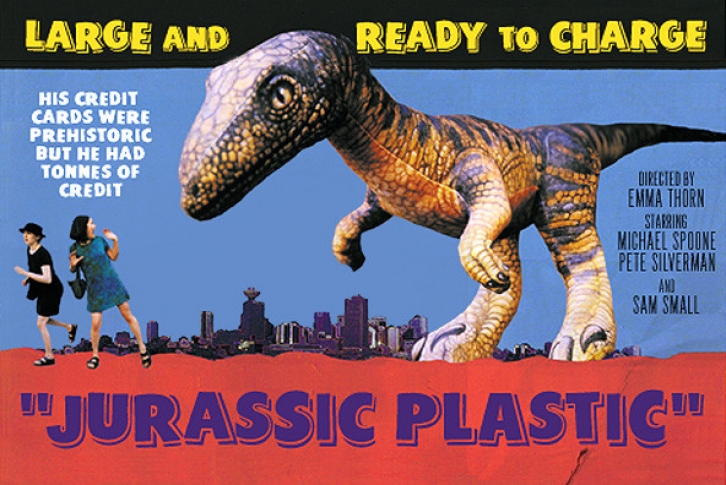
The Sunday Bestâ„¢ fonts are based on old hand-lettered type from a retro grade B movie poster.
BUILDING SHADOWS
While the regular versions of Sunday Bestâ„¢ will satisfy most of your design needs, you may sometimes have the desire to tint the shadows with a different colour or shade than the main parts of the letter. This can be easily done by using the Solid and Shadow fonts provided. The kerning and spacing of all characters in these fonts is identical, allowing you to overlay the different fonts to create different effects. For a simple colour variation between the main letter form and its associated "shadow", just follow these easy steps:
(1) Set your text in the point size that you are planning to use it. Use the Sunday Bestâ„¢ Regular font to determine the point size, line breaks and any other layout factors.
(2) When you are satisfied with the placement of your type, change all the text to the
Sunday Bestâ„¢ Solid font, and change this text to a desired colour or shade of black.
(3) Now duplicate all text blocks, and paste them directly on top of the existing text. Select the type in the newly pasted textblocks, and change it to the Sunday Bestâ„¢ Shadows font.
(4) Change the shadows to the desired colour or shade of
FULL CHARACTER SET
Each font in the Sunday Bestâ„¢ family has a full character set of 232+ letterforms, with all characters designed in the style of the font.